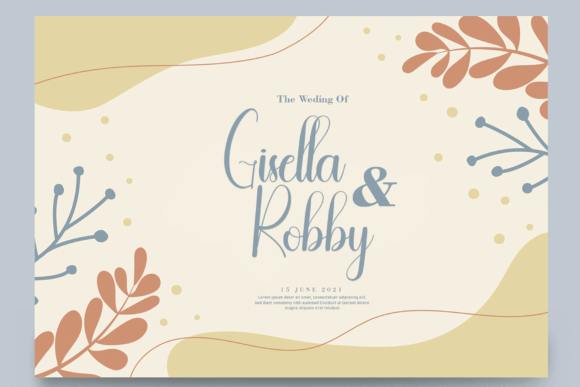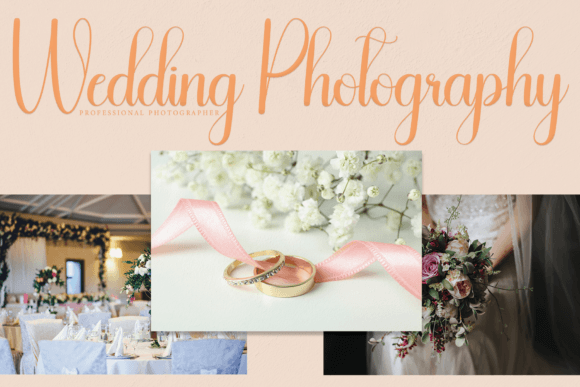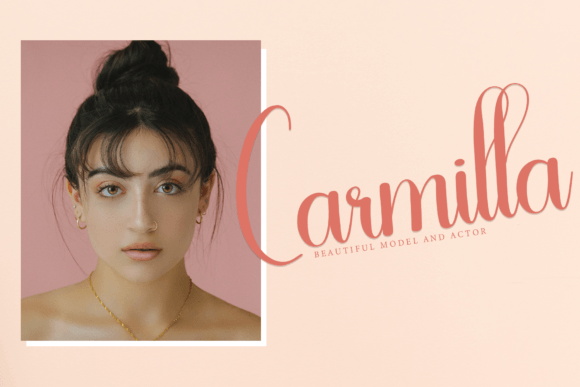
Introduction to Slight Font
Slight is a sweet and friendly handwritten font.
Fresh and neat, this font is ideal for writing wedding invitations, cards, or any other design that might need a fun touch .
Key Features of Slight Font
Why Choose Slight Font?
Slight Font offers exceptional quality and versatility, making it a valuable addition to your design toolkit. Whether you’re creating for personal projects or commercial use, Slight Font delivers professional results.